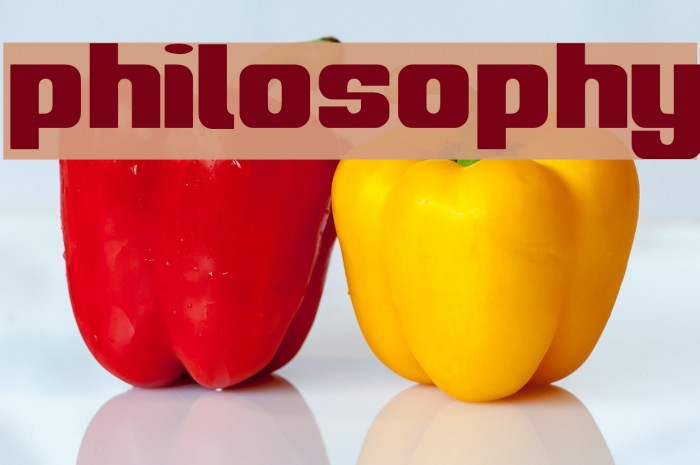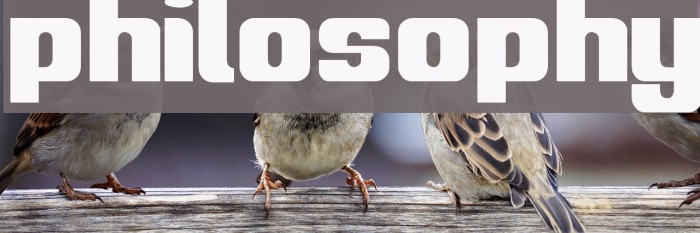
philosophy Font
This font features a bold and robust design with thick, uniform strokes that create a strong visual impact. The characters are wide and have a slightly condensed appearance, giving them a compact yet powerful look. The uppercase letters are particularly striking, with a blocky and geometric style that conveys a sense of stability and strength. The lowercase letters maintain the same boldness, ensuring consistency across the typeface. The numerals are equally bold, with a clear and legible design that complements the overall style. Special characters are designed to match the boldness of the letters and numbers, ensuring a cohesive appearance throughout. This font is ideal for projects that require a strong and assertive typeface.
A bold, geometric font with thick strokes and a strong presence.
- Proposed Projects: Ideal for posters, headlines, branding, and any design requiring a bold statement.